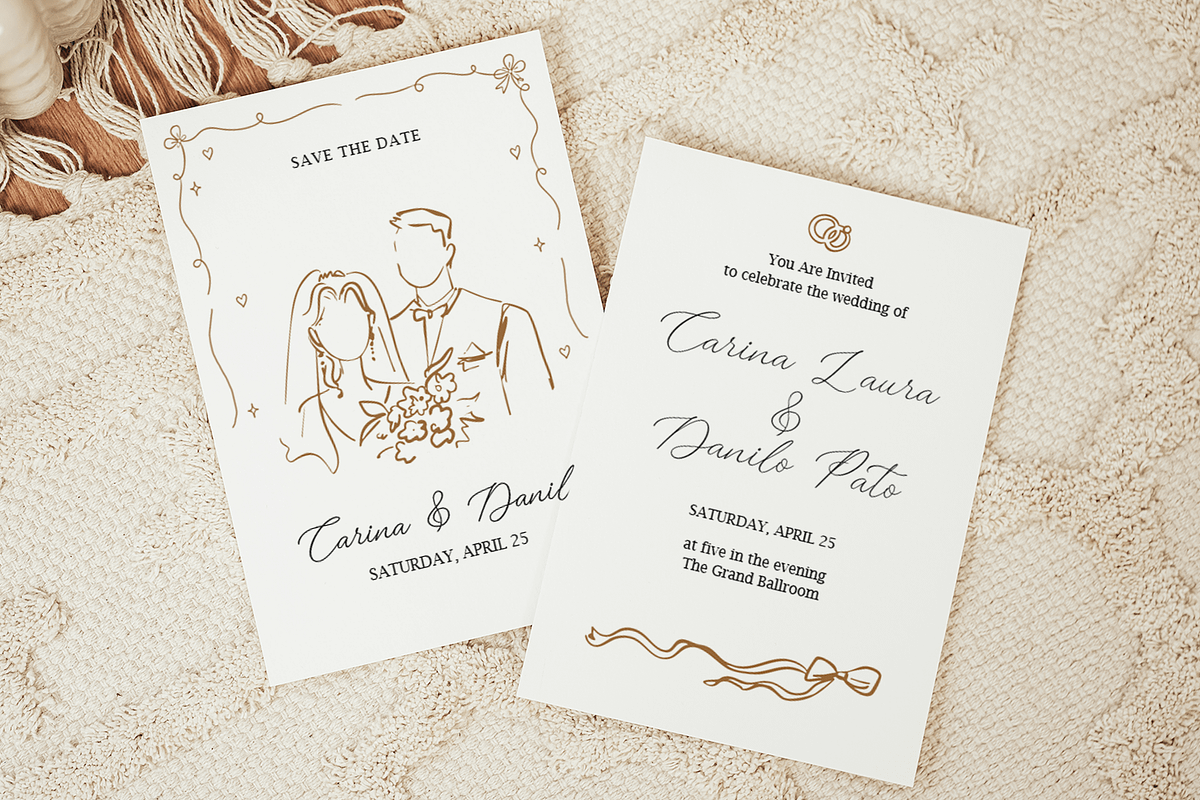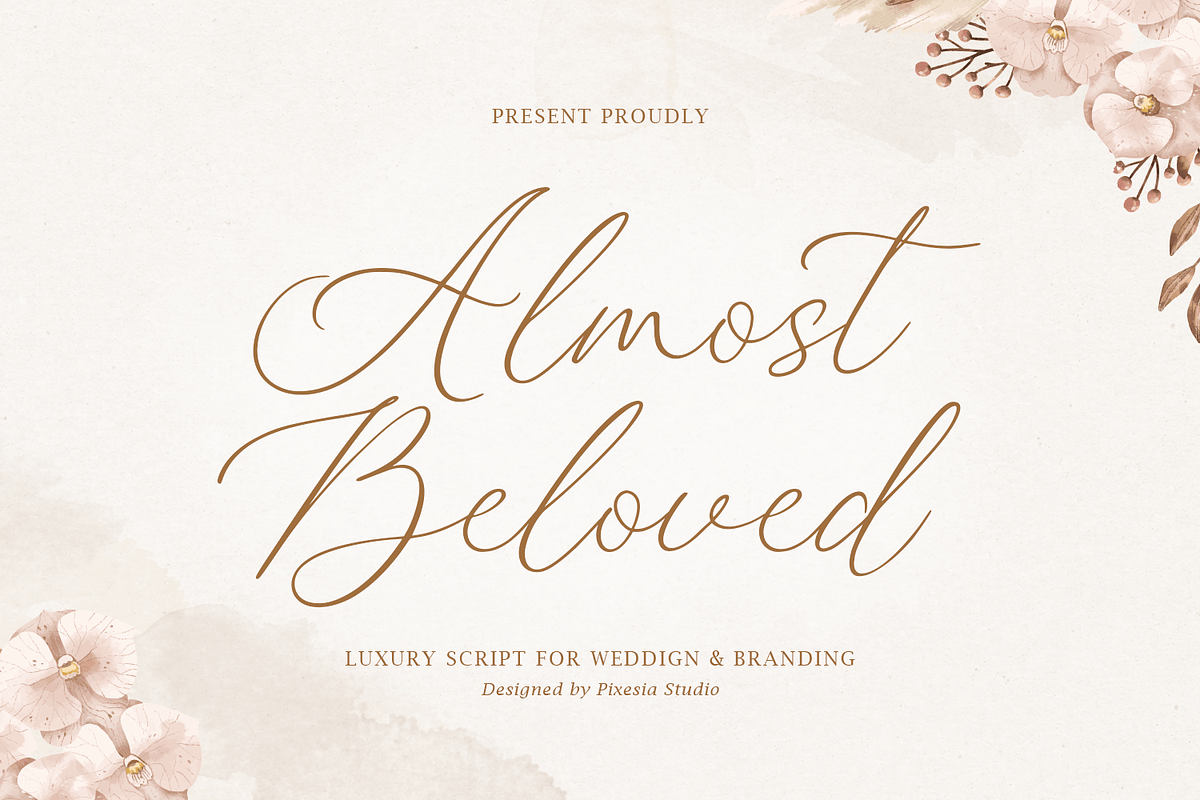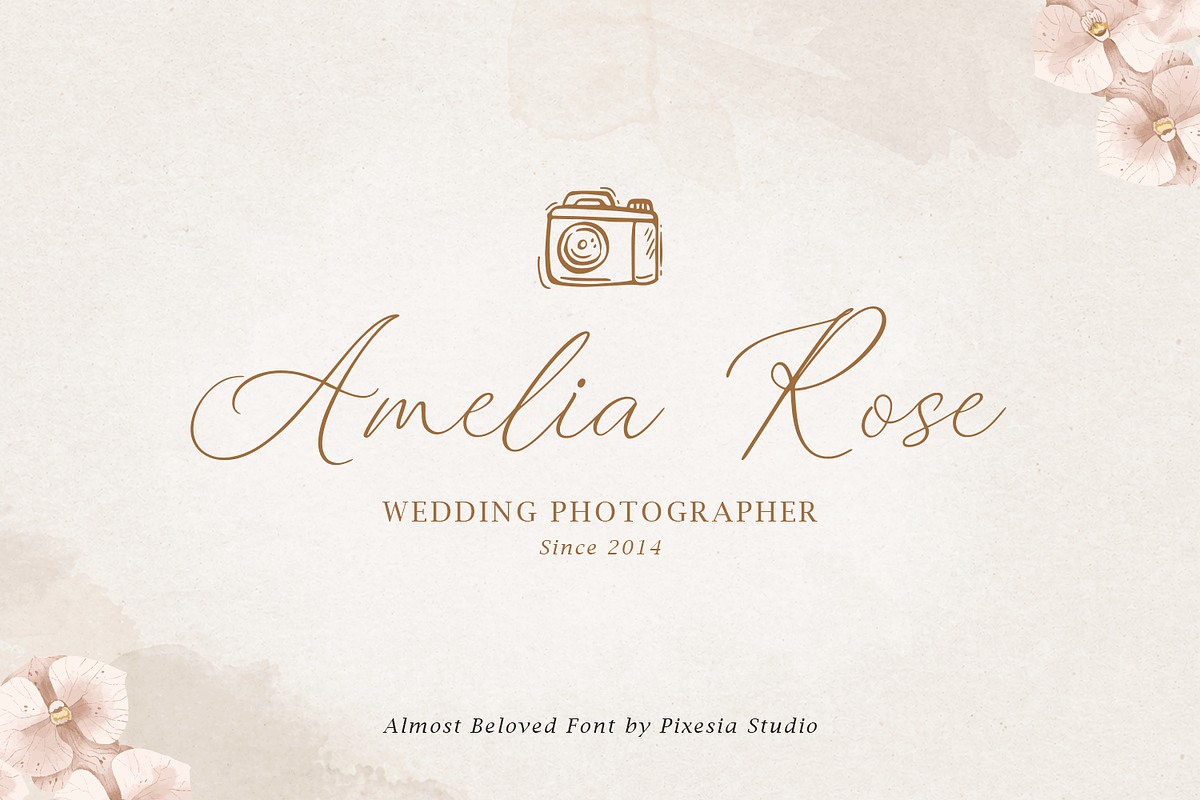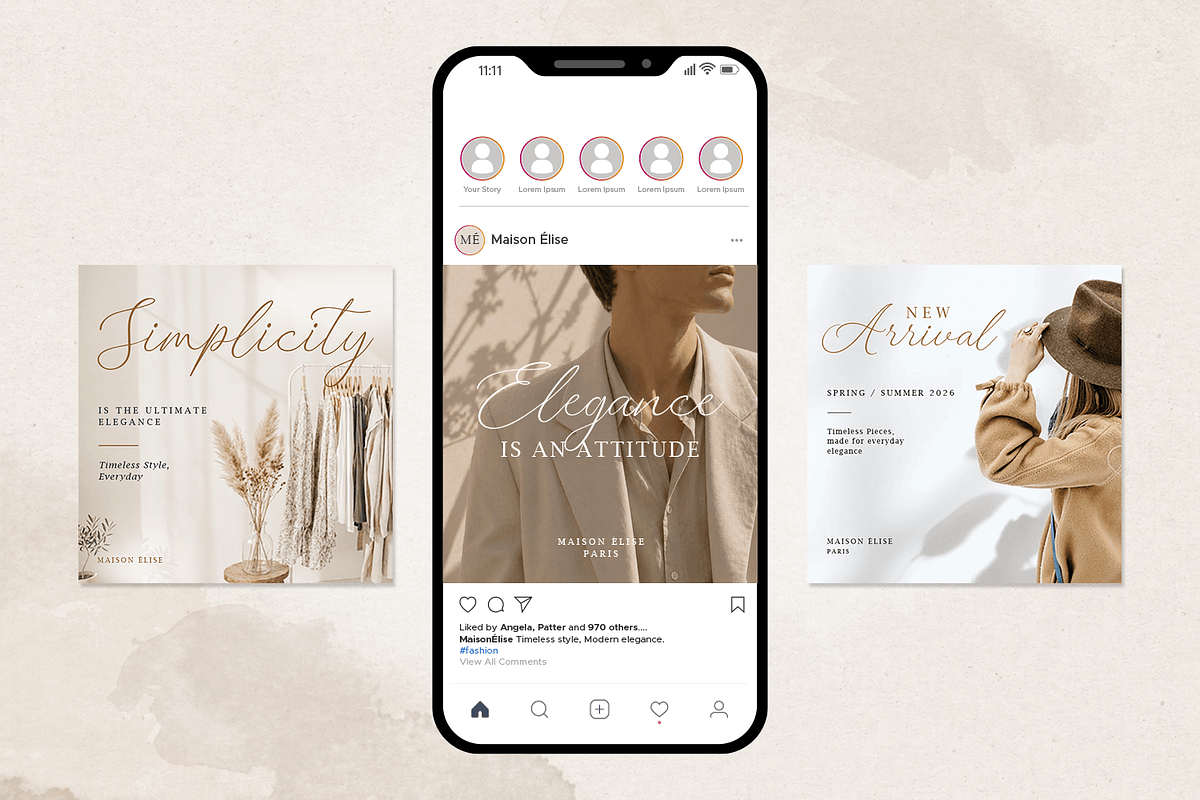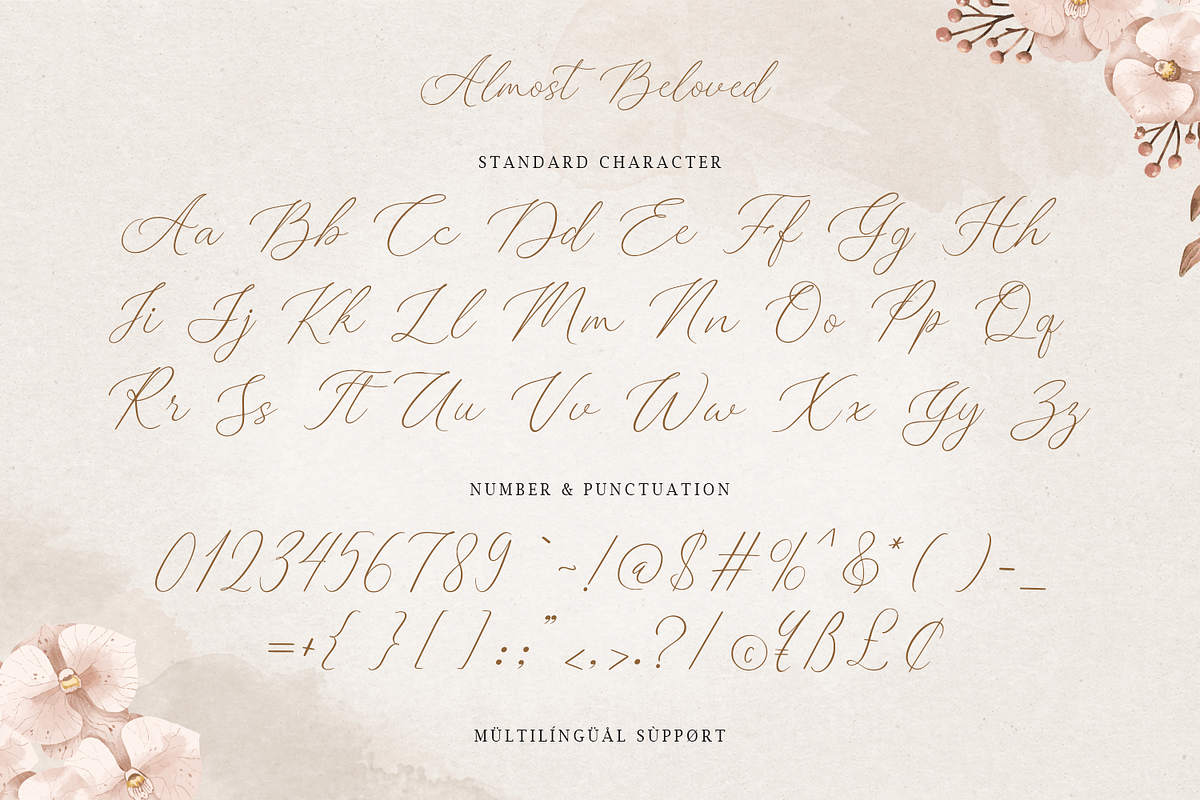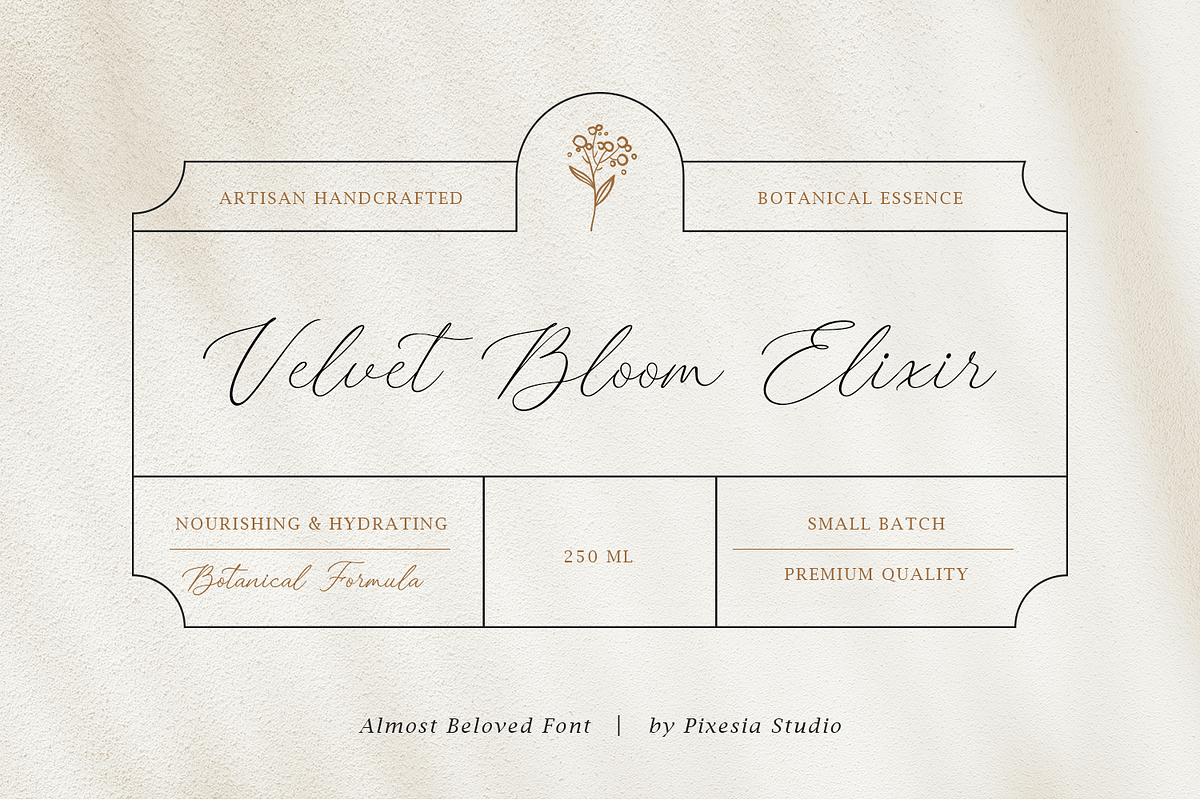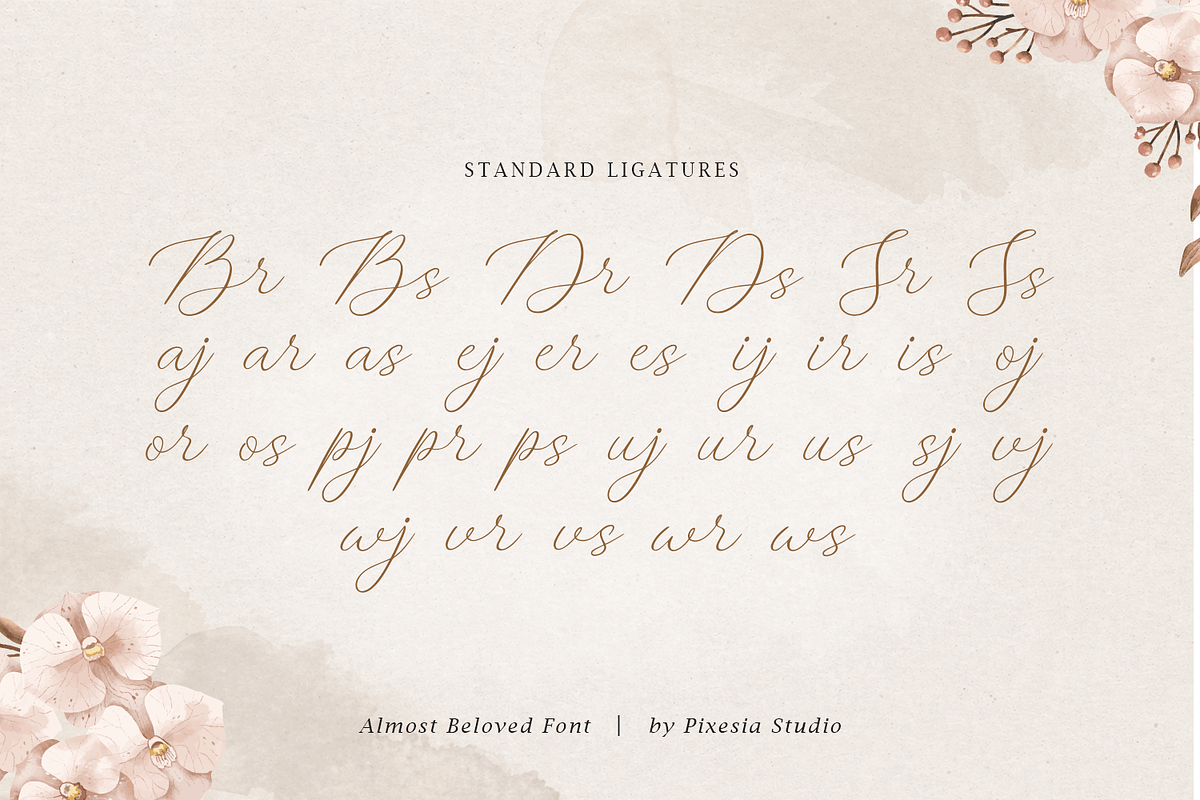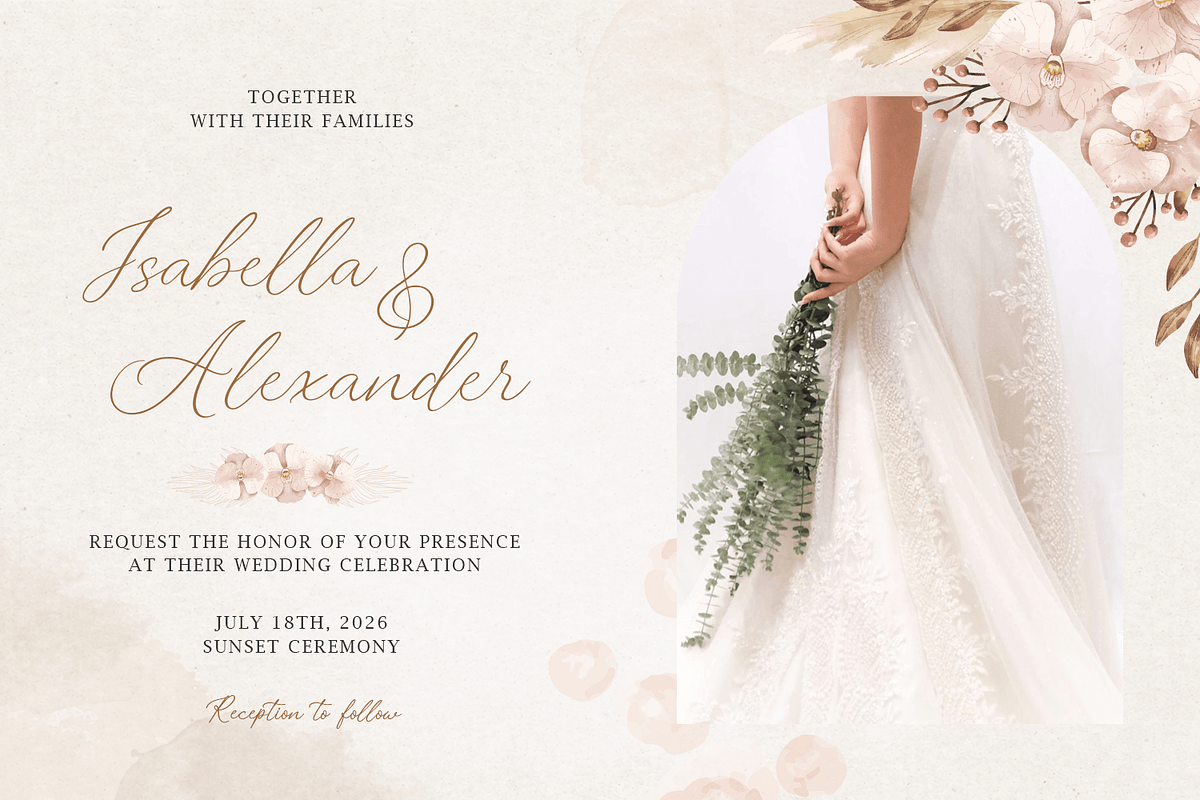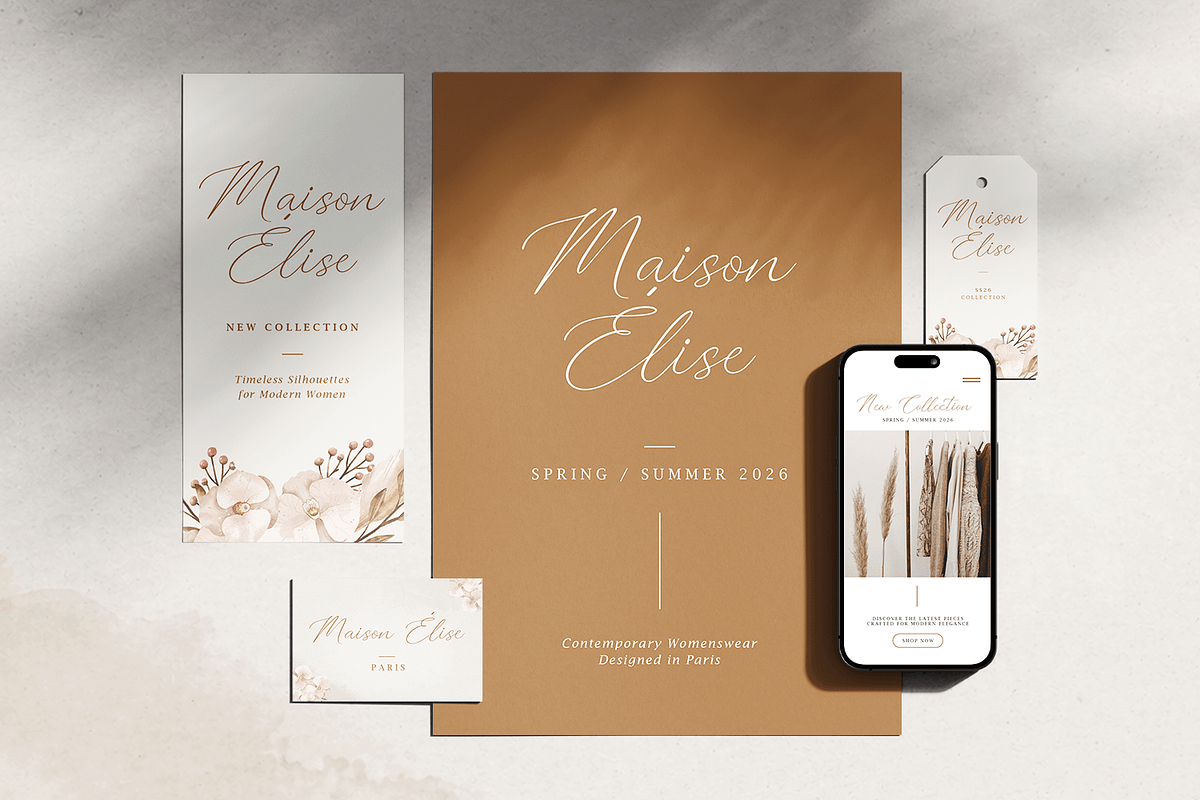
Almost Beloved - Luxury Script Font
Introducing Almost Beloved - Luxury Script Font
Almost Beloved is a luxurious script font that embodies elegance, romance, and timeless beauty. Designed with flowing curves and delicate strokes, this typeface captures the essence of modern calligraphy while maintaining a classic and graceful appearance. Its refined details and smooth connections create a sophisticated visual harmony, perfect for premium design work.
Ideal for branding, logos, labels, photography, advertising, product packagaing, stationery, wedding invitations, fashion projects, social media, and feminine designs, Almost Beloved adds a touch of class and emotional warmth to any composition. Whether you're crafting a romantic theme or a high-end brand identity, this font delivers elegance, style, and a beautifully polished finish.